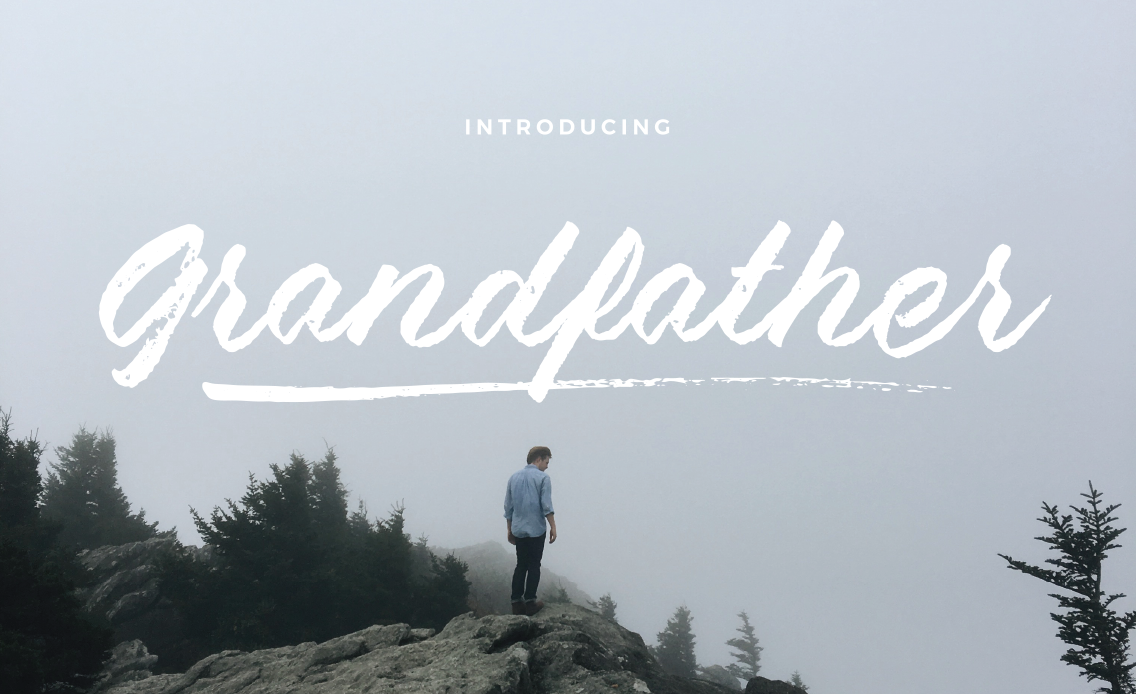
Welcome to the realm of Grandfather Font, a breathtaking journey into the world of script typography. Immerse yourself in the allure of handcrafted elegance, where each letter dances with a lively rhythm, mirroring the ebb and flow of a mountain stream. Inspired by the grandeur of Grandfather Mountain in North Carolina, this font captures the essence of nature's artistry, bringing a touch of the outdoors into your digital creations.
Grandfather Font is an expression of untamed creativity, a symphony of strokes that evoke the allure of the wilderness. Its somewhat bouncy baseline and flowy connections lend a playful charm to your designs, inviting your audience to engage with your content in a captivating and memorable way. Whether you're crafting logos, posters, social media graphics, or website headers, Grandfather Font adds a touch of magic that elevates your message.
Step into a world where words come alive, where every letter is a brushstroke, and every design is a masterpiece. Let Grandfather Font be your guide, leading you through the enchanted forest of typography. Its versatility knows no bounds, adapting seamlessly to a wide range of projects, from whimsical invitations to rustic branding. Unleash your imagination and explore the limitless possibilities that await you.